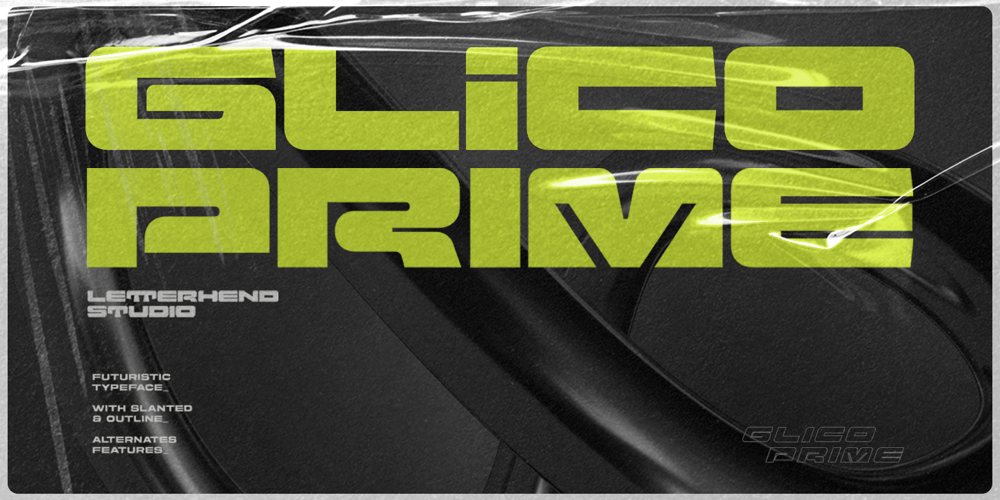
Glico Prime Font Family was designed by Hendry Juanda and published by Letterhend. Glico Prime contains 6 styles and family package options. Glico Prime is a heavy, bold, standout sans serif with futuristic theme. It has few styles with 3 stylistic, This type of font perfectly made to be applied as a headline, logo, title, quotes which is need a standout font, and the other various formal forms such as invitations, labels, logos, magazines, books, greeting / wedding cards, packaging, fashion, make up, stationery, novels, labels or any type of advertising purpose.Features : Regular, inline & outline 3 stylistic set numbers and punctuation multilingual ligatures PUA encoded We highly recommend using a program that supports OpenType features and Glyphs panels like many of Adobe apps and Corel Draw, so you can see and access all Glyph variations.